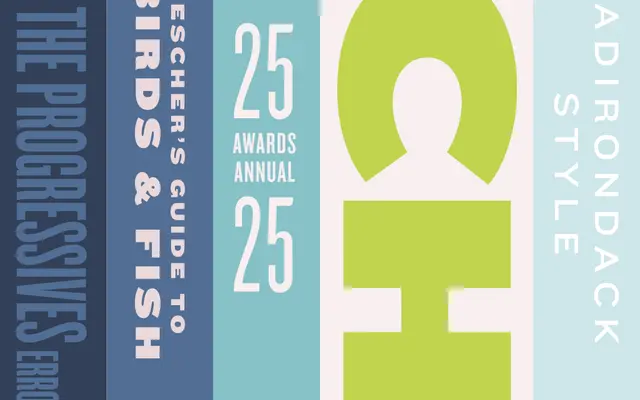
Knockout
Hoefler & Co · Jonathan Hoefler · 1994
A 32-style grotesque display family by Jonathan Hoefler, drawn on a boxing-inspired grid of widths and weights for headline systems.
A grotesque display family by Jonathan Hoefler, set out on a nineteenth century model where widths and weights were drawn independently rather than interpolated. The result is 32 styles, named for boxing weight classes from Flyweight to Sumo, that map out a complete headline system for newspapers, sports, editorial and identity. Hoefler treats the family as a kit for setting expressive, hierarchy-rich pages.
A grotesque display family drawn on a nineteenth century model of independent widths and weights, with 32 styles plotted across a grid for headline systems.